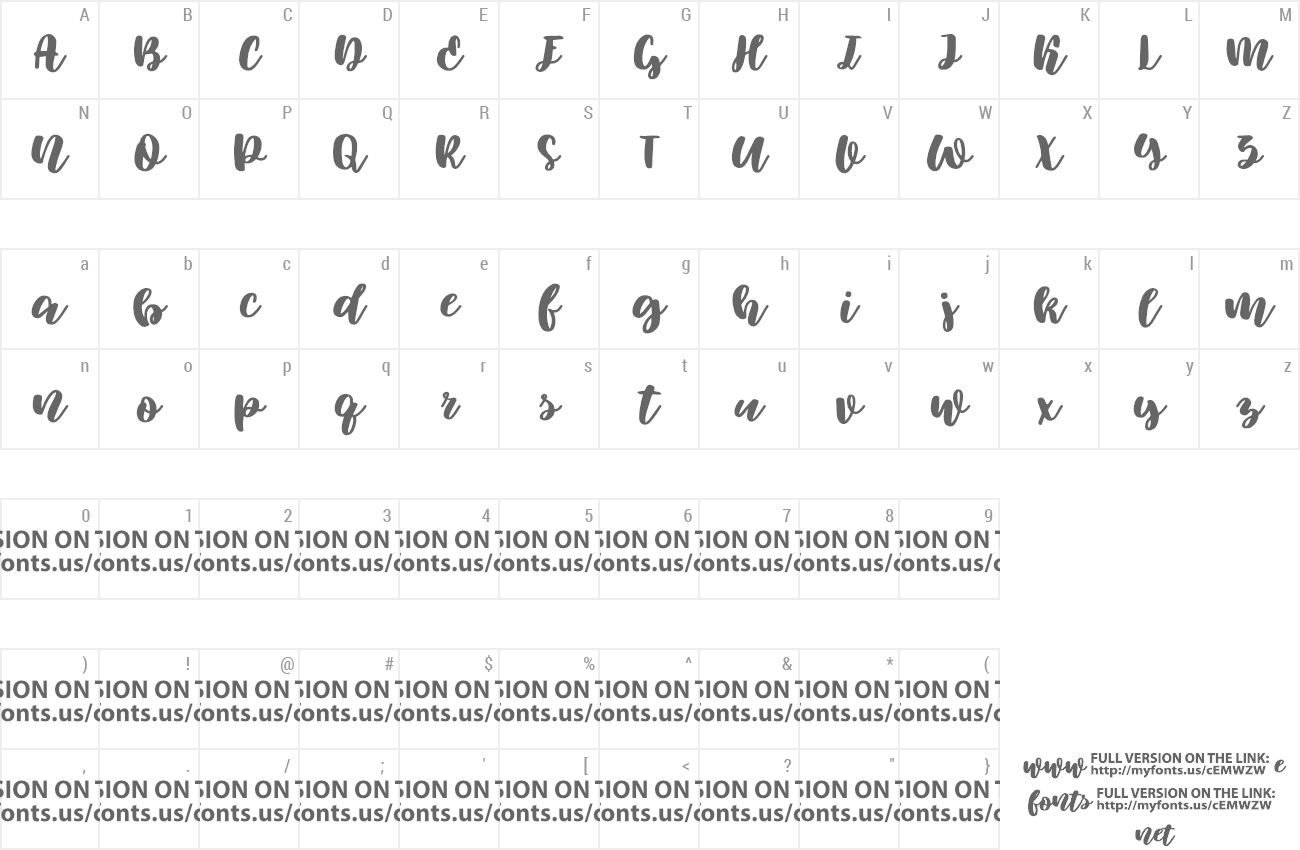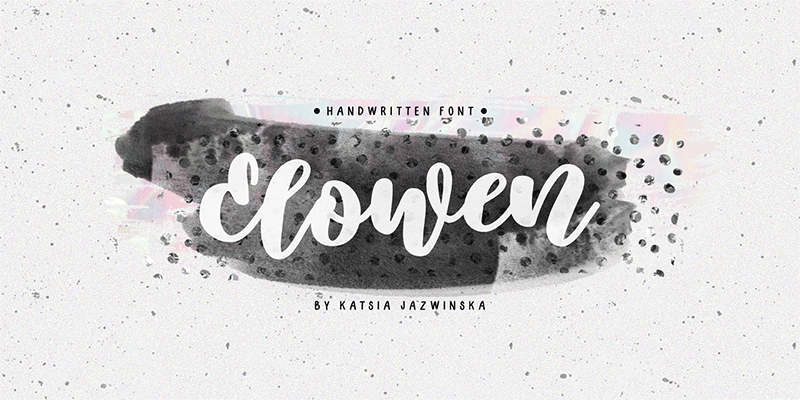
Preview and download Elowen Font. Created by Katsia Jazwinska in Script Handwritten styles with Demo license.
This is the demo version which was made for you to try out the font in your projects.� This means you can NOT use it for personal or commercial aims. --- DOWNLOAD FULL VERSION� FOR PERSONAL AND COMMERCIAL USE: http://myfonts.us/q6Ncul or https://crmrkt.com/Wpb7jA --- Full version of Elowen includes two typefaces: � Elowen - a bold script font with a dancing baseline and some double letter ligatures for a natural look. � Elowen Caps - an excellent companion for Elowen script in cases where a headline needed. Full version supports the following languages: English, French, Italian, Spanish, Portuguese, German, Swedish, Norwegian, Danish, Dutch, Turkish, Polish, Finnish, Romanian, Hungarian, Estonian, Russian (and other languages with cyrillic alphabet) and more. Contact me if you have any questions: k.yazvinskaya@gmail.com |